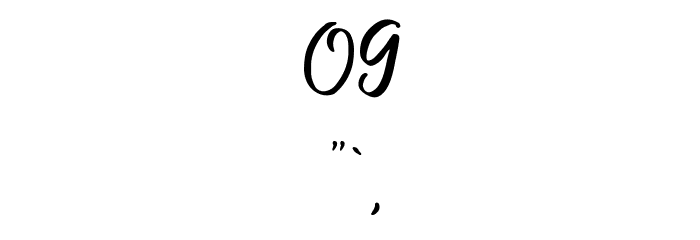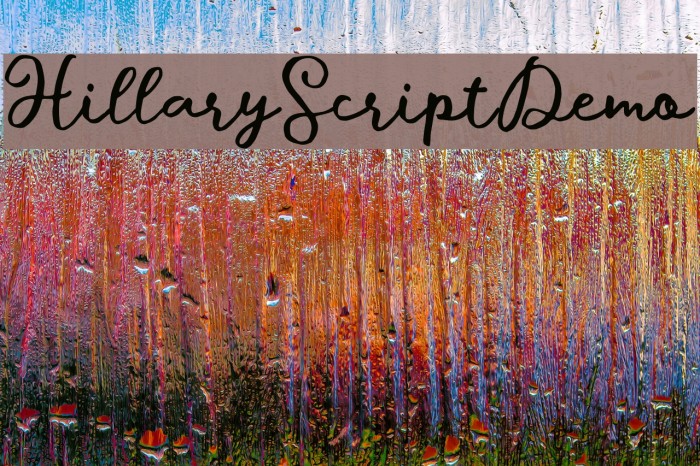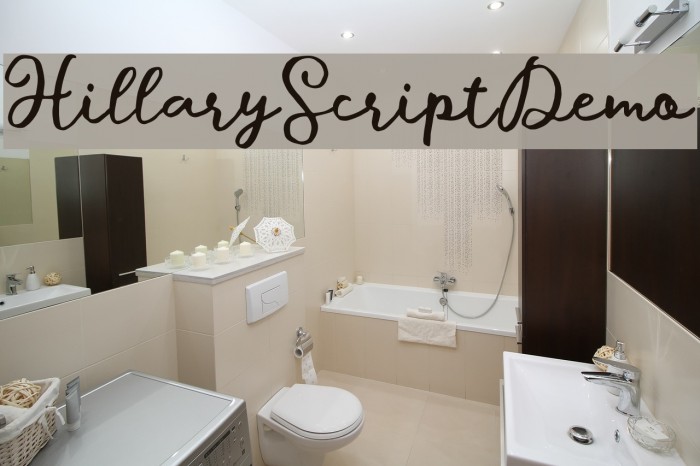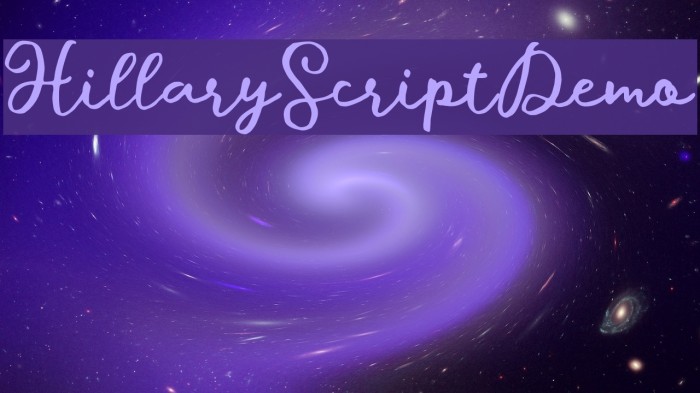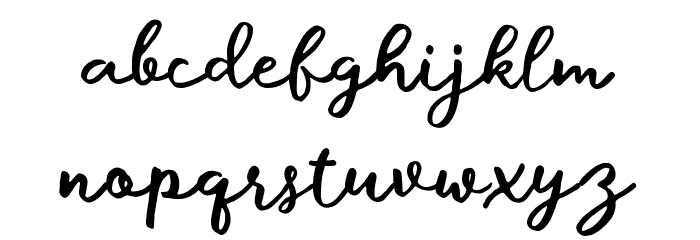
HillaryScriptDemo Font
HillaryScriptDemo Description
This elegant script font features a flowing, cursive style that mimics the fluidity of handwritten calligraphy. The uppercase letters are gracefully connected, with smooth curves and loops that give a sense of movement and sophistication. The lowercase letters maintain a consistent rhythm, enhancing readability while preserving the artistic flair. The font's overall appearance is both classic and contemporary, making it versatile for various design applications. The numerals are distinct and harmonize well with the alphabet, while the special characters add a touch of elegance to any text. This font is perfect for projects that require a personal, human touch.
| Overall Style | Classic |
| Use Case | Headlines, Logos, Invitations |
| Proposed Projects | Ideal for wedding invitations, greeting cards, branding, and elegant packaging designs. |